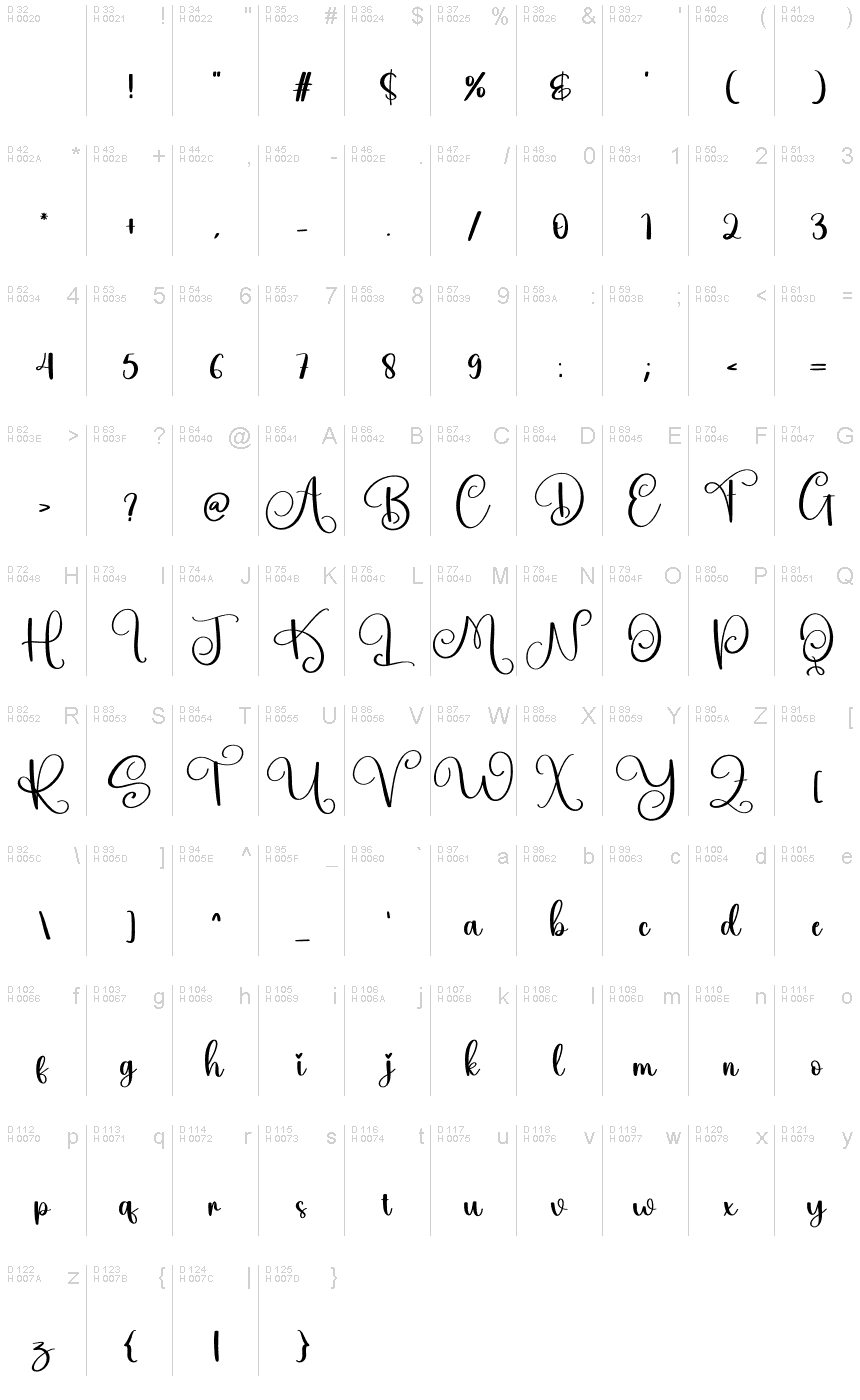
Jubilee
Jubilee, a mesmerizing calligraphic font by scratchones, adds an elegant touch to any project. Its semi-light weight exudes delicacy and finesse, making it ideal for wedding invitations, greeting cards, or sophisticated event branding. With its graceful curves and flowing strokes, Jubilee brings an air of timeless beauty to menus and signage. Perfectly suited for fashion magazines or luxury branding, this meticulously crafted typeface captivates readers with its artistic flair. Whether you aim to create a refined logo or elevate your editorial layout, Jubilee is the epitome of sophistication and charm.